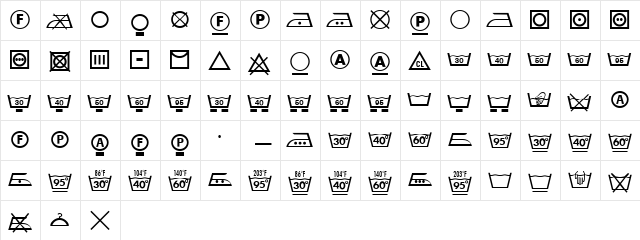
Linotype Textile Pi Regular
Design Context for Linotype Textile Pi Typeface
Linotype Textile Pi takes a measured approach to typography — its balanced proportions and neutral character make it a reliable workhorse for both digital and print work.